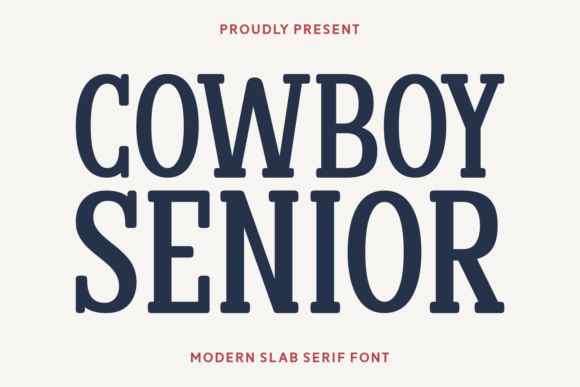
Cowboy Senior: A Bold Slab Serif for Digital Branding
It was a late afternoon when I first placed Cowboy Senior into the hero section of a boutique online store I was redesigning. The moment the font rendered on screen, I knew this was something special. With its strong masculine personality and condensed slab serif structure, Cowboy Senior immediately stood out as a typeface that could carry the weight of a brand’s identity while adding visual flair.
A Strong First Impression
Cowboy Senior is a bold slab serif font with a striking allure that makes it ideal for digital branding. Its condensed form gives it a modern edge, while the thick serifs add a touch of traditional craftsmanship. This combination works exceptionally well for website headers, landing page titles, and call-to-action buttons where impact matters most.
I tested it over an image banner with a dark background, and the contrast was perfect. The text didn’t blend in—it commanded attention. It felt like the kind of font that could be used for a creative portfolio or a high-end product landing page, where the goal is to make the viewer stop scrolling and take notice.
Using Cowboy Senior in Web Layouts
Cowboy Senior excels in short phrases and decorative wording, making it a great fit for hero sections, section headings, and logo text. I experimented with placing it in different areas of the site: from a product landing page headline to a promotional campaign banner. In each case, it brought a sense of confidence and authority to the design.
On mobile screens, the font remained legible despite its boldness. I found that using it in larger sizes with generous line spacing helped maintain readability without sacrificing style. For smaller buttons or links, I paired it with a clean sans serif font to ensure accessibility and usability across all devices.
One thing to keep in mind is that Cowboy Senior isn’t suited for long body copy or dense paragraphs. Its decorative nature makes it more appropriate for display use rather than supporting text. When designing for a blog or content-heavy site, it should be reserved for headlines and subheadings, leaving the body copy to a simpler, more readable font.
Font Pairing and Design Harmony
When it comes to font pairing, Cowboy Senior works best with a simple sans serif font for body text. I tested it alongside Helvetica Neue and found that the contrast between the bold slab serif and the clean sans serif created a balanced and professional look. This pairing is especially effective for editorial design or web pages that aim to convey both creativity and clarity.
For a more playful tone, I also tried combining it with a handwritten script font for accents and decorative elements. The result was visually engaging without feeling cluttered. However, I made sure not to overuse the script font, keeping Cowboy Senior as the dominant display typeface.
Another consideration is checking the font’s available styles and weights. While I only needed the bold version for this project, having access to additional weights could provide more flexibility for different design scenarios. Always verify that the font supports your target language and includes any necessary alternates or ligatures before finalizing a design.
Practical Tips for Web Use
When working with Cowboy Senior in web projects, I recommend testing it in various contexts—especially when dealing with image overlays, dark backgrounds, or fast-loading visuals. The font performs well against light backgrounds but may require increased contrast when used on darker tones.
In my experience, Cowboy Senior has proven to be a versatile and stylish choice for digital branding. Whether it's used in a hero section, a product title, or a call-to-action button, it adds a sense of strength and character to any design. As long as it's used appropriately and paired wisely, it can become a powerful tool in building a cohesive and memorable brand identity online.